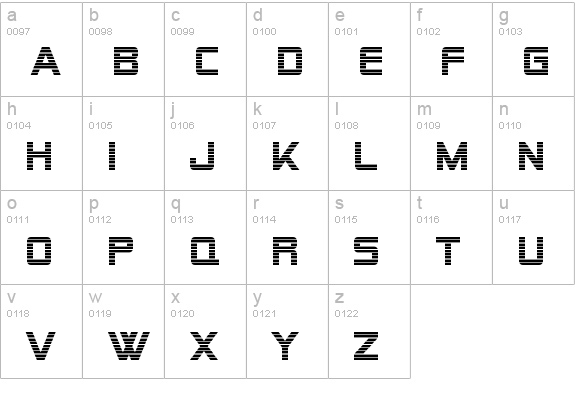
SF Alien Encounters Font Details
SF Alien Encounters is a captivating and futuristic font that will transport your designs to another dimension. With its sleek and otherworldly letterforms, this font is perfect for any science fiction or space-themed project. Whether you're designing a poster for an intergalactic event, creating a logo for a futuristic technology company, or crafting a book cover for an extraterrestrial adventure, SF Alien Encounters will add an element of intrigue and mystery. This font features unique and intricate characters that are reminiscent of alien hieroglyphics, making it truly stand out from the crowd. Its bold and angular lines give it a sense of strength and power, while its subtle curves and rounded edges add a touch of elegance. The balance between sharp and smooth elements creates a harmonious and visually striking design. One of the most appealing aspects of SF Alien Encounters is that it is freely available to download at FontsMarket.com. This means that you can easily access and use this font in your projects without any limitations or restrictions. Whether you're a professional designer or a hobbyist, having access to high-quality fonts like SF Alien Encounters for free is a valuable resource that can enhance your creative endeavors. With SF Alien Encounters, you have the freedom to explore and experiment with different typographic styles and layouts. Its versatile nature allows it to be used in a variety of design applications, from digital interfaces to print media. The legibility of this font ensures that your message will be conveyed clearly and effectively, while its distinctive appearance adds a touch of personality and uniqueness to your designs. So, if you're ready to take your designs to new heights and embark on an intergalactic journey, look no further than SF Alien Encounters. Download this font for free at FontsMarket.com and let your creativity soar as you explore the outer reaches of design possibilities.